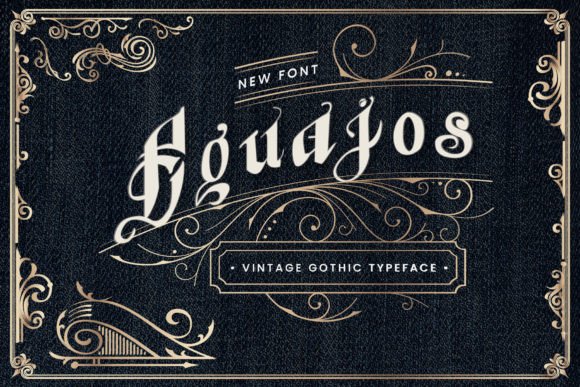
Introducing Equajos Vintage Font- A Classic Journey Through Retro Gothic Artistry
Embark on a typographic adventure with Equajos, a blackletter font that oozes retro charm and artistic flair. Inspired by the captivating allure of vintage Gothic lettering signs and art, Equajos stands tall and bold, ready to transform your creative endeavors into captivating masterpieces.
More than just a font, Equajos is an artistic expression that takes you back to an era of nostalgia and timeless elegance. With its solid and commanding presence, it's the perfect choice for headlines that demand attention. Logotypes crafted with Equajos will exude an air of distinction and heritage. Apparel designed with this font will carry a touch of vintage sophistication, while invitations and labels will radiate elegance and timeless charm.
Unleash your creativity with Equajos and watch as your projects come alive with captivating beauty. Branding and packaging will take on a unique identity, while advertising materials will command attention with their distinctive vintage appeal. Equajos is not just a font; it's a gateway to a world of creative possibilities, a companion on your journey to create timeless designs.
Embrace the allure of Equajos and let your imagination run wild. Whether you're working on creative projects or professional endeavors, this font will add a layer of sophistication and intrigue that will leave a lasting impression.